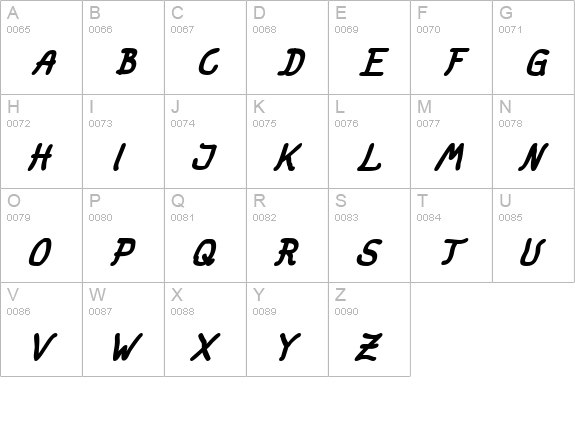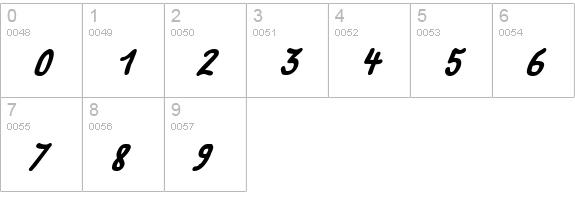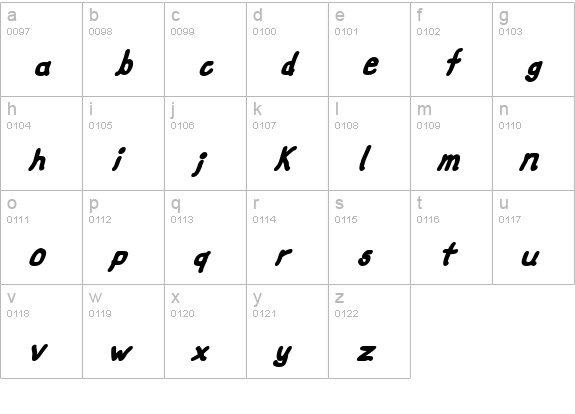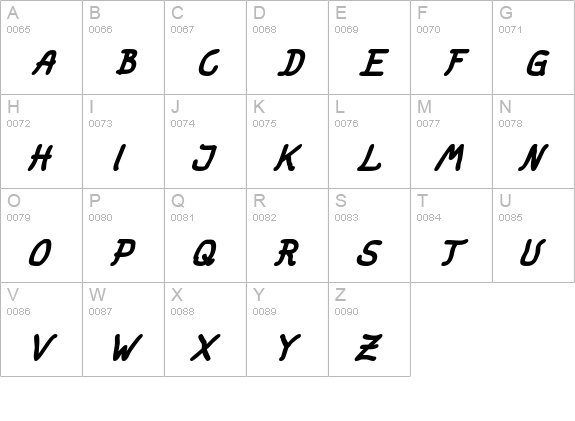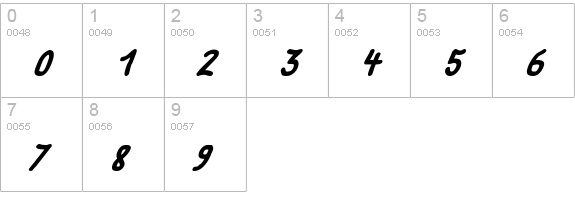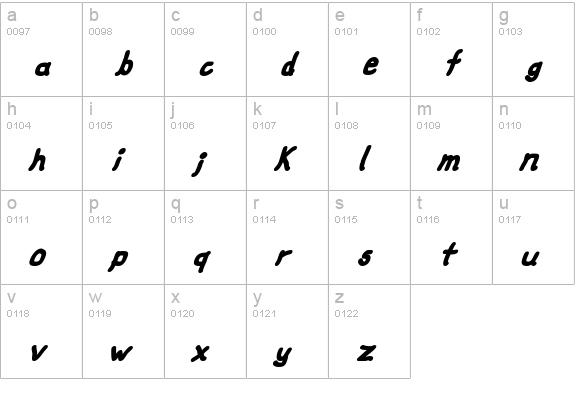
fat marker Italic Font Details
fat marker Italic is a distinctive, italic variant in the fat typeface family \xE2\x80\x94 well suited to design and typography projects.
Introducing the captivating Fat Marker Italic font, a bold and striking typeface that is perfect for making a statement in your designs. With its thick strokes and italic style, this font exudes confidence and flair. Whether you're creating eye-catching posters, attention-grabbing headlines, or vibrant branding materials, Fat Marker Italic will surely leave a lasting impression. What's even better is that this fantastic font is available for free download at FontsMarket.com. You can easily access this font and start incorporating it into your projects without any cost. Don't miss out on the opportunity to add this unique and stylish typeface to your font collection today!